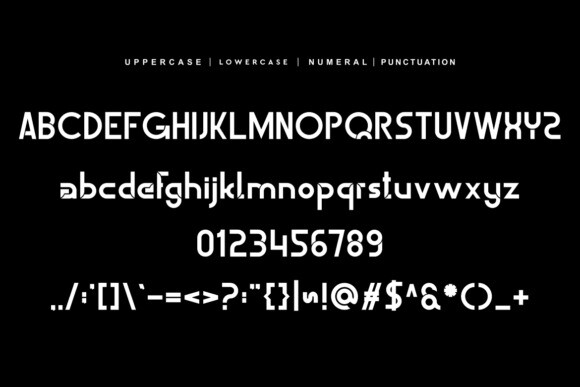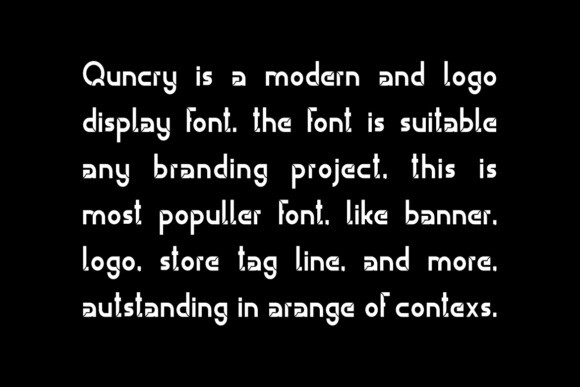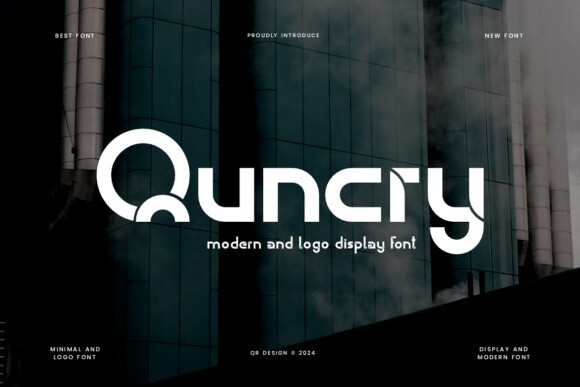
Quncry Font
Designer: qrdesignstd
Quncry Font is a bold and authentic display font. The font is suitable for any branding project like logo, sport, and many more. Outstanding in a wide range of contexts.